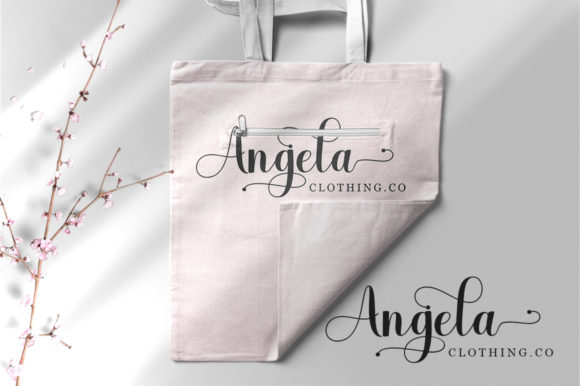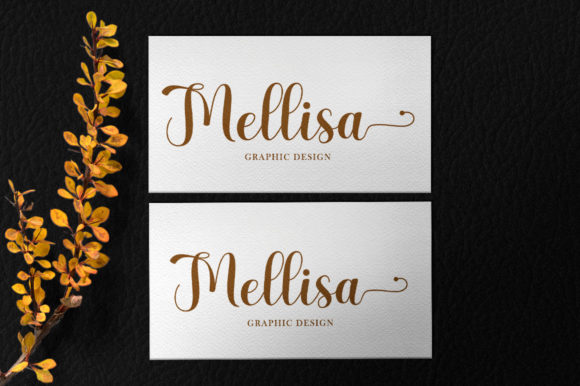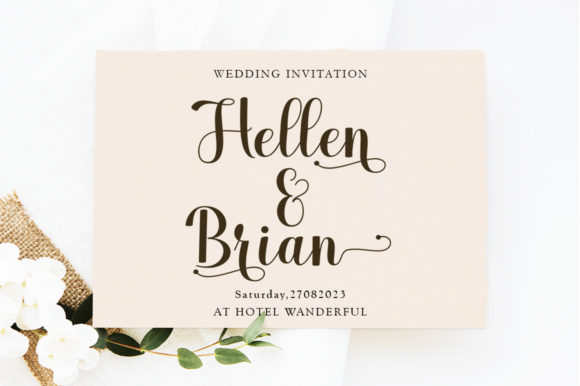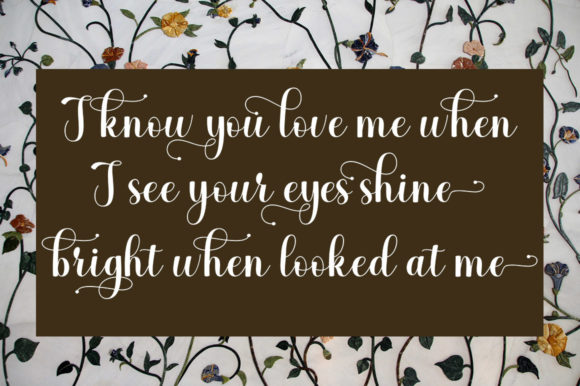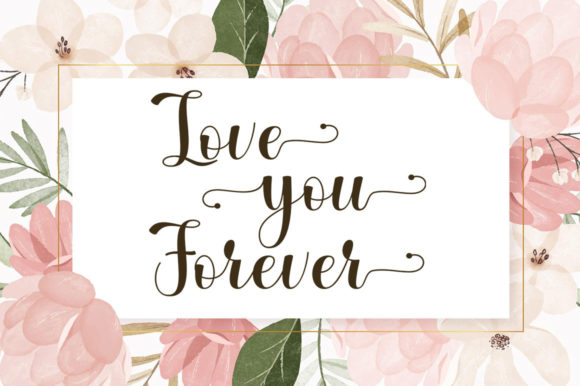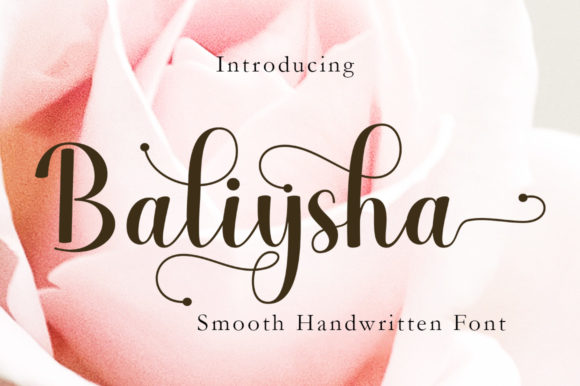
The Perfect Script Font for Your Next Creative Project
Have you ever stared at a blank page, trying to come up with the perfect design for your next project? Maybe you’re crafting a logo for a new business, or planning a wedding invitation that will leave a lasting impression. Whatever your creative endeavor, you know that the right font can make all the difference.
Enter the Baliysha Font, a stunning script font that exudes elegance and sophistication. With its refined, modern look, Baliysha Font is the perfect choice for logos, branding, invitations, and so much more. Its versatility and stylish flair make it a valuable asset for designers looking to elevate their work.
Thanks to its PUA encoding, accessing all the glyphs and swashes of the Baliysha Font is a breeze. This means you can unlock its full potential and create truly unique designs that will leave a lasting impression. Whether you’re a seasoned designer or just starting out, the Baliysha Font is a must-have addition to your toolkit.
Baliysha Font Key Features
- Unique Characteristics: Baliysha Font features a unique blend of traditional and modern elements, with intricate details and ornate flourishes that set it apart from other fonts.
- Kerning and Ligatures: Baliysha Font includes advanced kerning and ligature pairs, ensuring that text sets are beautifully spaced and visually appealing.
Baliysha Font Review
As a designer, I’ve had the chance to work with the Baliysha font, and I must say, it’s been a mixed bag.
- Unique and elegant script design: The Baliysha font has a beautiful, flowing script style that adds a touch of sophistication to any design.
- Good legibility: Despite its script nature, the font is surprisingly easy to read, even at smaller font sizes.
- Customization options: The font comes with a range of stylistic sets and ligatures that allow for a high degree of customization.
- Limited language support: The Baliysha font seems to be geared more towards Western languages, with limited support for languages like Chinese or Japanese.
- Not suitable for body text: While the font is great for headlines and titles, it may not be the best choice for large blocks of body text due to its script nature.
- Some compatibility issues: I experienced some minor compatibility issues with the font in certain design applications.
The Baliysha font is a great choice for designers looking to add a touch of elegance to their designs. While it has some limitations, its unique design and customization options make it a valuable addition to any font collection.
Baliysha font is suitable for:
- Brand logos and typography
- Custom graphics and illustrations
Tips: Use Baliysha font to create a unique and eye-catching visual identity for your brand or project. Experiment with